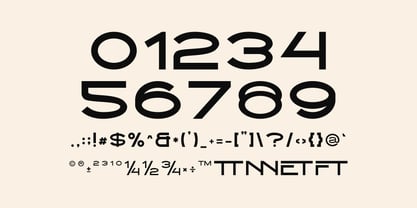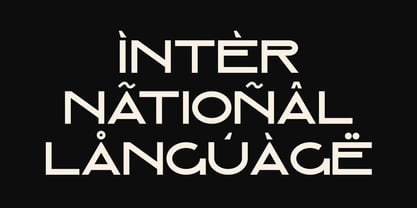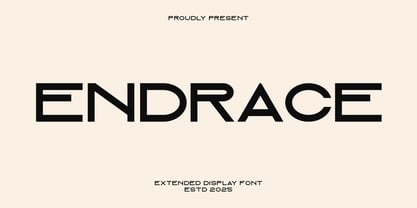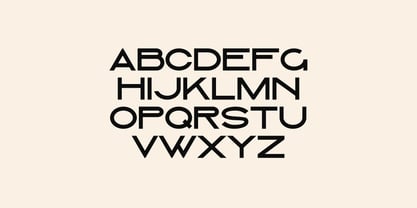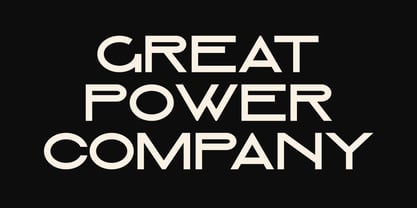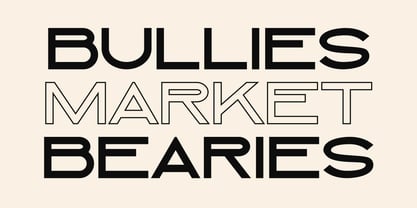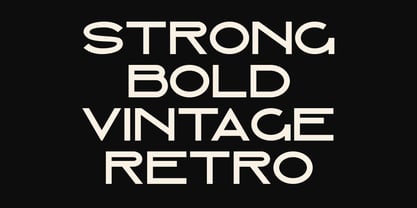
Endrace
by Artiveko
The Endrace Font Family was designed by Iwan Alwan and published by Artiveko. Endrace contains 2 styles and family package options.
Endrace is an expanded sans serif font designed with boldness and modern appeal. Featuring wide letterforms and clean geometry, Endrace is perfect for impactful headlines, branding, posters, and digital displays. With multilingual support, ligatures, and alternates, it offers a strong presence and confident style—ideal for projects that need clarity, space, and a contemporary edge.